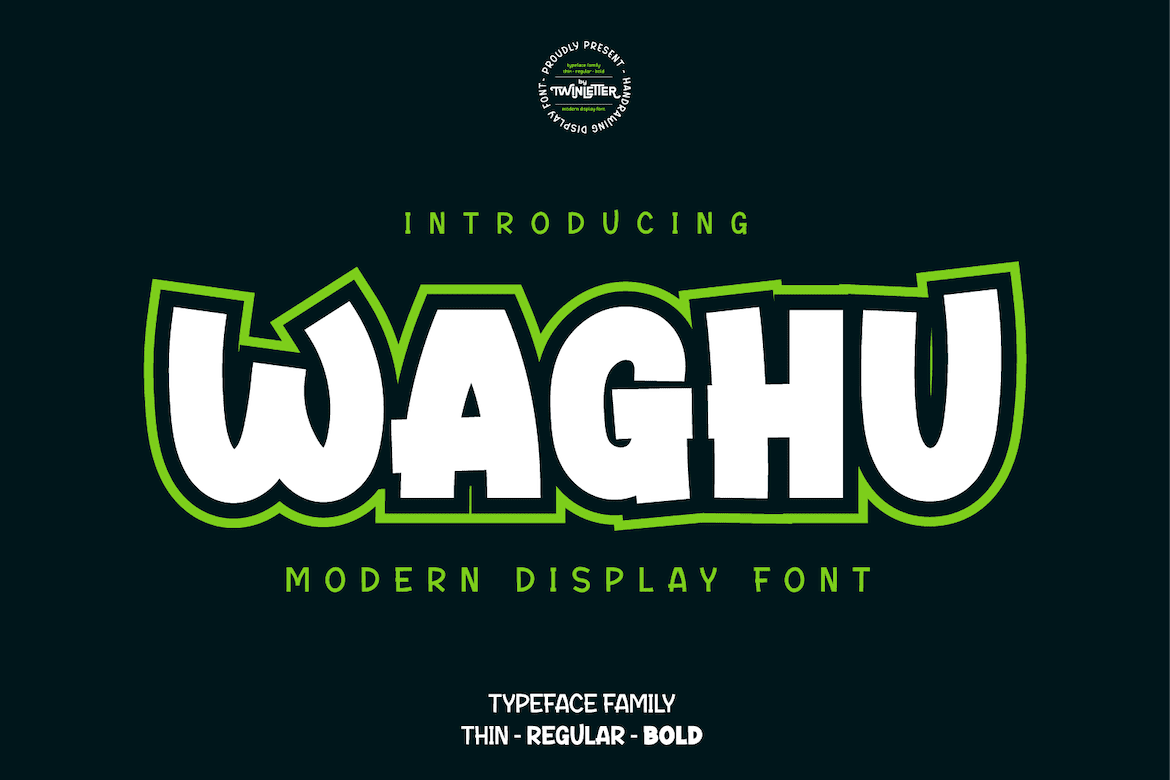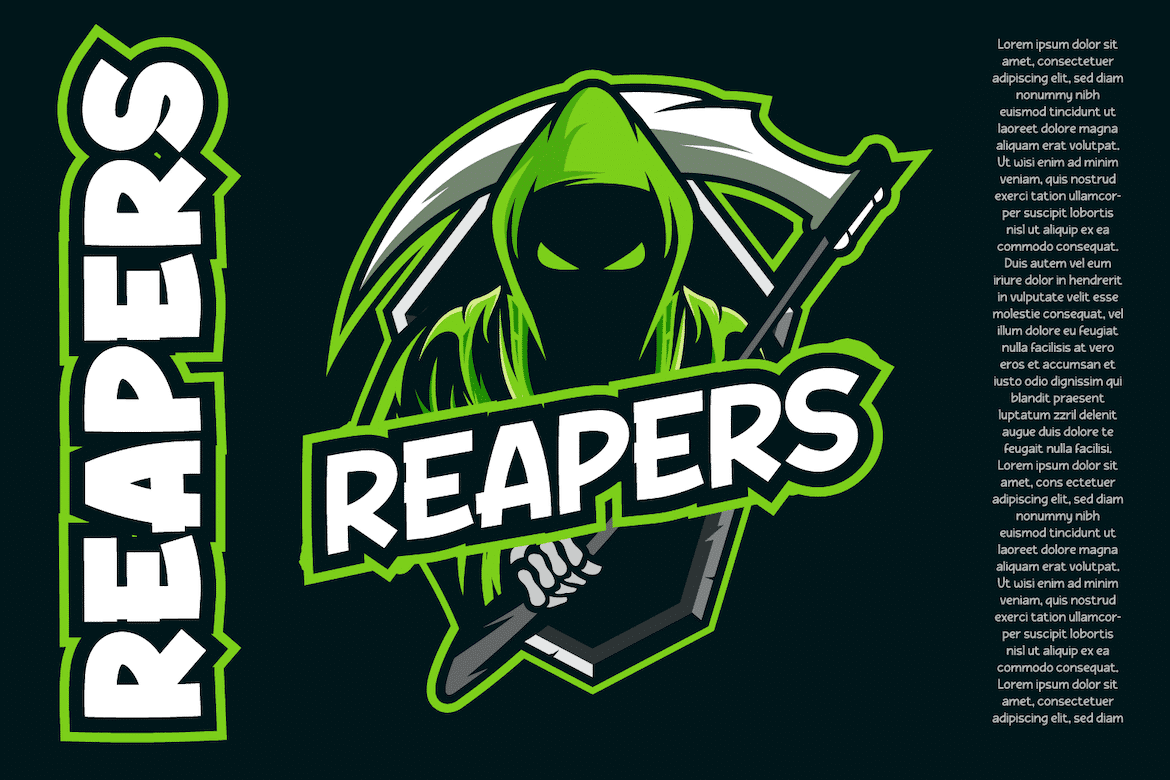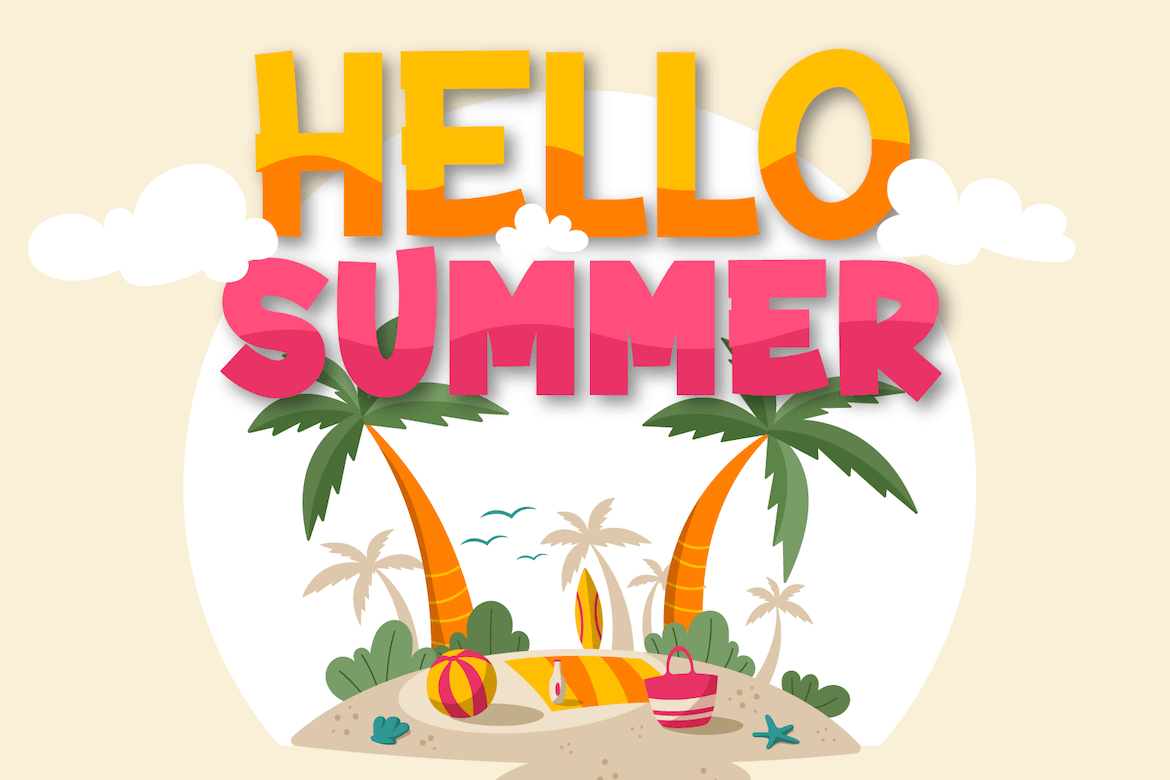
Waghu Font
Waghu is an abstract font that you can use for casual design purposes. It is also right for you to use it for formal design purposes, this font can adapt beautifully if you use it in your project. There are three alternatives thin, regular, and bold. makes it easier for you to combine them according to your needs.